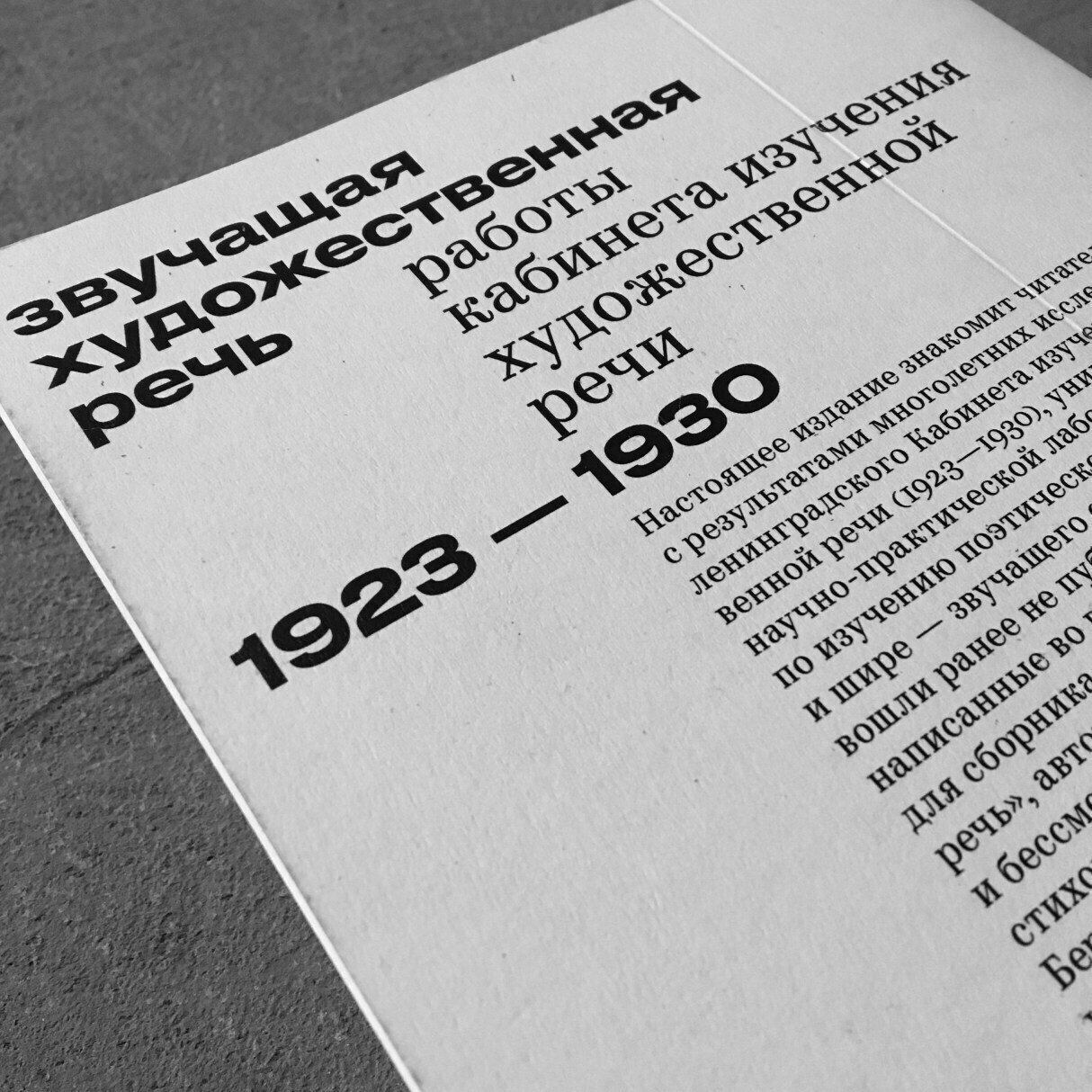
Dala Floda
Paul Barnes (Commercial Type)
Cyrillic: Ilya Ruderman
This stencil Renaissance-style serif was conceived as a result of Paul Barnes’ long walks through old cemeteries and docks — Dala Floda is all about how exquisite shapes confront the reality. It is a rare case of stenciling which follows the logic of the letterforms (in the italics, especially). It makes Dala Floda is such a great fit for large and very large text sizes.
Dala Floda has a sibling sans Dala Moa, and an even more display version called Dala Prisma, with ornamental stripes (both with no cyrillics yet).
Arkhangelskoye Museum by Zoloto Group
PR Hotel Myasnitsky
Druk
Berton Hasebe (Commercial Type)
Cyrillic: Ilya Ruderman and Yury Ostromentsky (CSTM Fonts)
An absolute world hit, initially designed for Bloomberg Businessweek magazine. The fonts in the collection are strictly heavyweight and of extreme widths — so as to keep the character of the typeface, even if sacrificing the range of its use.
Partly because of Bloomberg Businessweek’s remarkable style, the extra-wide and extra-condensed sans type is in vogue again. You can see Druk anywhere on the Web, in exhibition design, and even on Saturday Night Live.
Flacon Magazine by ONY Agency
Stranger, a music video by Yung Lean
Russian National Museum of Music Zoloto Group
A–Z Museum by ONY Agency
Kazimir
Ilya Ruderman and Yury Ostromentsky (CSTM Fonts)
One of our bestsellers, Kazimir follows the spirit of Russian pre-revolutionary typography, while looking fresh and today as ever. Thanks to that, Kazimir works equally well in setting Tolstoy, or the latest news. The wildest letterforms, best fit for display setting, can be found in the Irregular set.
A year after its release, Kazimir got a text counterpart with lower contrast and wider proportions. Kazimir Text, together with Graphik, work in RBC, a Russian digital business media and a daily newspaper.
Visual & Syntactic Materialities by Elena Etter
«Серебряный век Константина Павловича Кузнецова» by ABC Design
Uppa Winery by Redo Bureau
Parmigiano
Riccardo Olocco, Jonathan Pierini (Typotheque)
Cyrillic: Irina Smirnova, Ilya Ruderman
Parmigiano is, by far, the most ambitious font project based on works of Giambattista Bodoni. The designs of Bodoni are reinterpreted, resulting in four large font families with different optical sizes. This is a contemporary, pragmatic typeface which feels equally great in print and on screen.
Aivazovsky exhibition catalogue for Tretyakov Gallery, by ABC Design
Max Weber, Die Stadt, by Daria Yarzhambek and Yury Ostromentsky, Strelka Press
«Звучащая художественная речь: Работы Кабинета изучения художественной речи» by Arbeitskollektiv
Trola
Jordi Embodas (Tipographies)
Cyrillic: Pilar Cano and Ferran Millan (Letterjuice), Ilya Ruderman and Yury Ostromentsky (CSTM Fonts)
Trola is a compact and practical Dutch serif. It works well both as text and headline font. Lowercase cyrillics are a bit larger than the latins — Letterjuice, who designed the Cyrillic set initially, say the idea is from Tagir Safayev’s speech at University of Reading.
Tipographies’ faux newspaper font specimen
Barcelovers magazine
CSTM Xprmntl 02
Yury Ostromentsky (CSTM Fonts)
expertise in Georgian: Alexander Sukiasov
Xprmntl 02 is second in the series of experiments by CSTM Fonts. Regular, Bold, and Italic have very little in common, graphically — the coherence of the typeface is enforced by hand and will of the author. That’s why we are particularly happy to see two, or even all three styles, used in a single design project. Yury Ostromentsky commented on the design process on CSTM Fonts’ Telegram channel.
This is also our first release with Georgian glyph set.
Graphics for Pardes, a kosher grocery, by Alexander Lartsev
Graphic identity for Japan-themed festival, graduation project by Anastasia Cherepanova, HSE Art and Design School
And there’s more
Ilya Ruderman and Yury Ostromentsky (of type.today и CSTM Fonts) also took part in other projects, that won Modern Cyrillic 19. Ilya designed cyrillics for Yandex Sans (by Commercial Type). Ilya and Yury together designed cyrillics for Sang Bleu superfamily (by Swiss Typefaces), and also consulted Lucas Descroix (Nostra) on their projects. And, at least, Yury consulted Olga Pankova (Curbe).
Yandex Sans
Sang Bleu
Curbe
Nostra